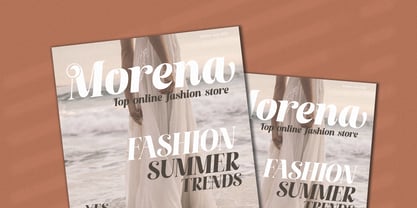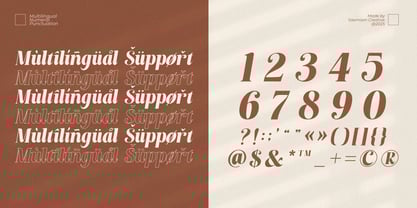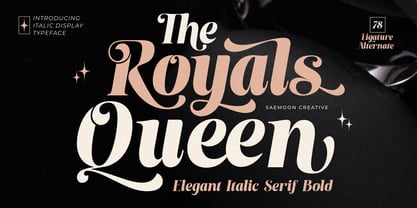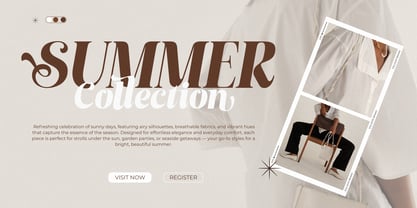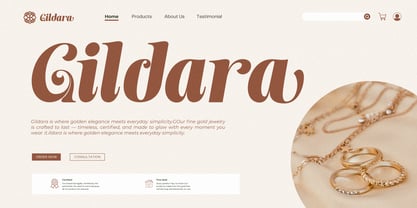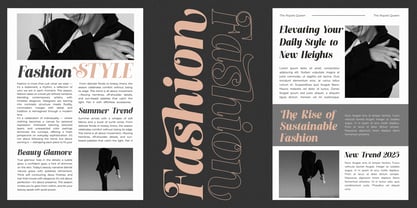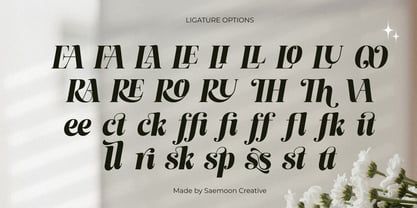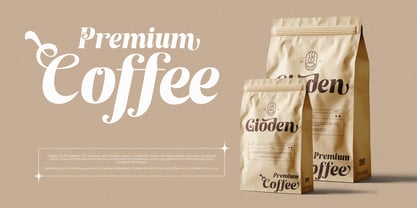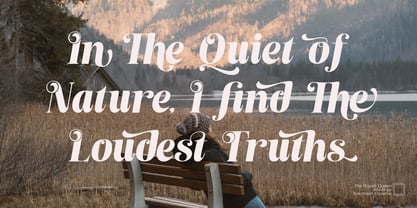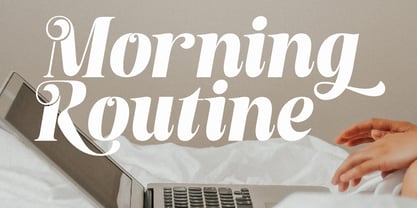
The Royals Queen
by Saemoon Creative
The The Royals Queen Font Family was designed by Sapto Susilo and published by Saemoon Creative. The Royals Queen contains 1 styles.
The Royals Queen – Elegant Italic Serif Bold
Introducing The Royals Queen, a sophisticated italic display serif typeface designed to bring a royal touch to your typography. Crafted with refined curves, high contrast strokes, and decorative flair, this font evokes elegance, charm, and timeless luxury.
Perfectly suited for branding, editorial headlines, packaging, and high-end fashion projects, The Royals Queen features:
• 78 Ligatures & Alternates – to create striking and personalized letter combinations.
• Bold Italic Form – giving your titles strong presence with graceful motion.
• Stylish Details – from swirled terminals to elegant ball serifs that elevate your designs.
This font pairs beauty with function, making it ideal for logos, invitations, posters, or any layout that craves bold elegance and femininity.
Designers: Sapto Susilo
Publisher: Saemoon Creative
Foundry: Saemoon Creative
Design Owner: Saemoon Creative